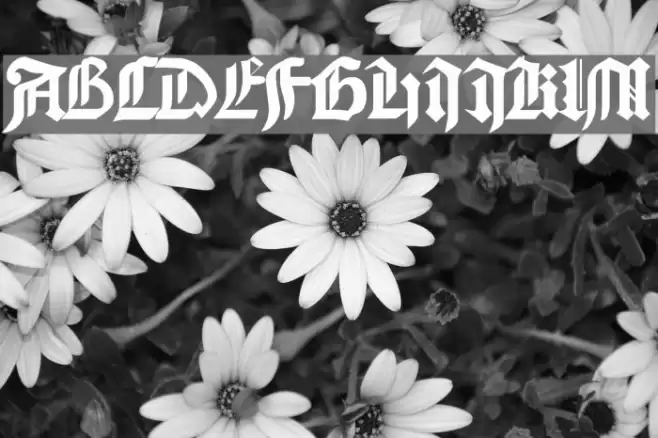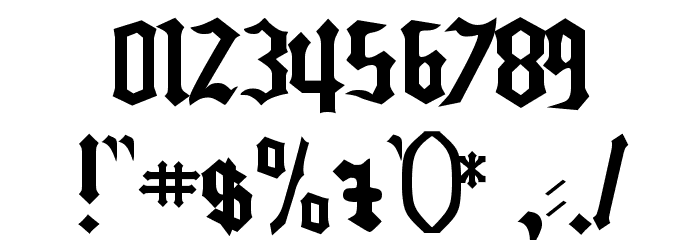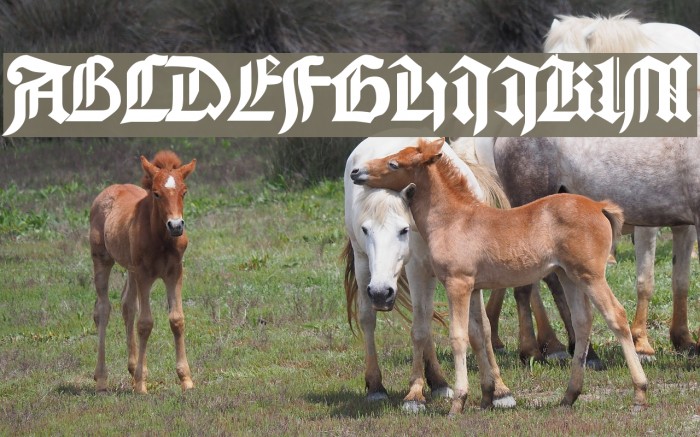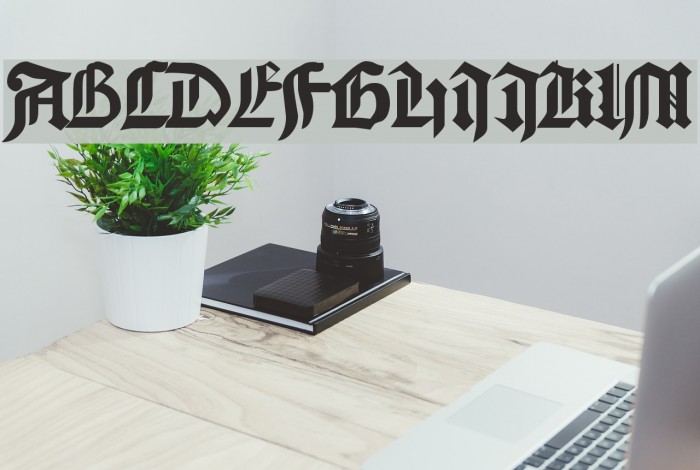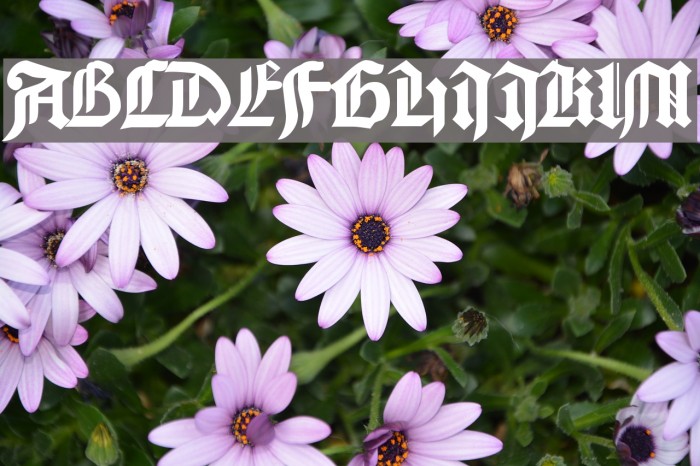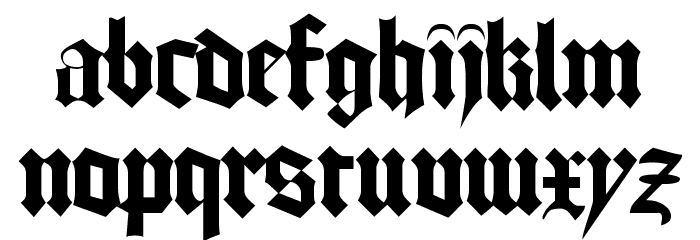
Bamberg Plain Font
Bamberg Plain Description
This font exhibits a bold and dramatic style, reminiscent of traditional Blackletter typefaces. It features sharp, angular lines and intricate detailing, giving it a historic and gothic appearance. The uppercase letters are particularly ornate, with elaborate serifs and flourishes that add to its decorative nature. Lowercase letters maintain the same level of detail, ensuring consistency throughout the typeface. The numerals and special characters are equally stylized, making them suitable for thematic and decorative purposes. This font is ideal for projects that require a touch of medieval or classic gothic flair.
A bold, gothic Blackletter style font with intricate detailing from Gothic fonts.
- Proposed Projects: Suitable for historical documents, themed event invitations, book covers, and branding that requires a classic or gothic touch.
- Overall Style: Vintage
- Use Case: Logos, Headlines, Decorative text